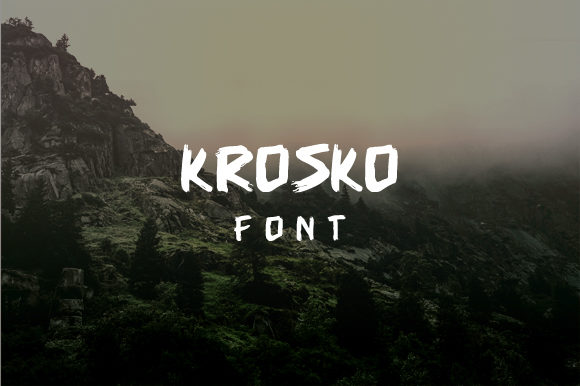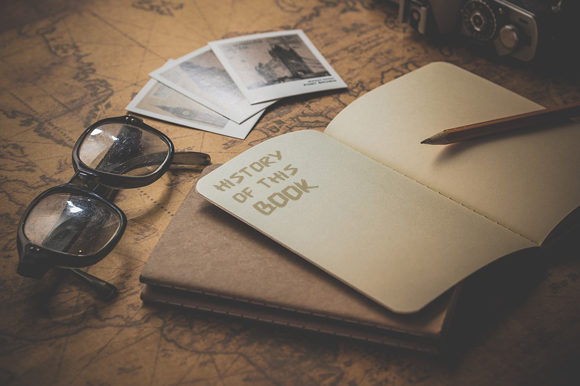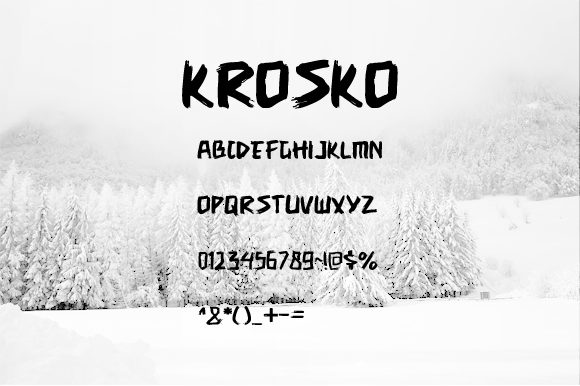
HomeScript FontsKrosko Font Script Fonts Krosko Font FacebookXPinterestWhatsApp Krosko Font Poster 2 Krosko Font Poster 3 About Krosko Font Krosko is a rough and simple handwritten font with a cool twist. It will add a unique flavor to any design idea! DOWNLOAD ON CREATIVE FABRICAThis font is sold and delivered by Creative Fabrica. Font Canyon may earn a commission if you buy through this link. People also explored Round Butterfly Font Blackhome Font Sunday Morning Font Cynical Shabitha Font Yudenica Font Hello Holliday Font Instagnam Font Heedway Font 370 0 TagsKrosko Font Previous articleNermola Duo FontNext articleJandys Font LEAVE A REPLY Cancel reply Comment: Please enter your comment! Name:* Please enter your name here Email:* You have entered an incorrect email address! Please enter your email address here Website: Save my name, email, and website in this browser for the next time I comment. Personal Use Free BD Lofi Personal Use Free Read more about this font Cinderella Personal Use Free Read more about this font Deling Personal Use Free Read more about this font Strings Personal Use Free Read more about this font BLOG Using Fonts in Digital Marketing: Tips to Strengthen Your Brand Identity In the realm of digital marketing, every visual element plays a crucial role in shaping a brand's identity, and fonts are no exception. The... Best Fonts for YouTube Videos: Make Your Thumbnails Stand Out Elegant Wedding Invitation Fonts – Handwritten & Script Fonts Top 7 Google Fonts Alternatives for Faster and Privacy-Friendly Web Design (2025)